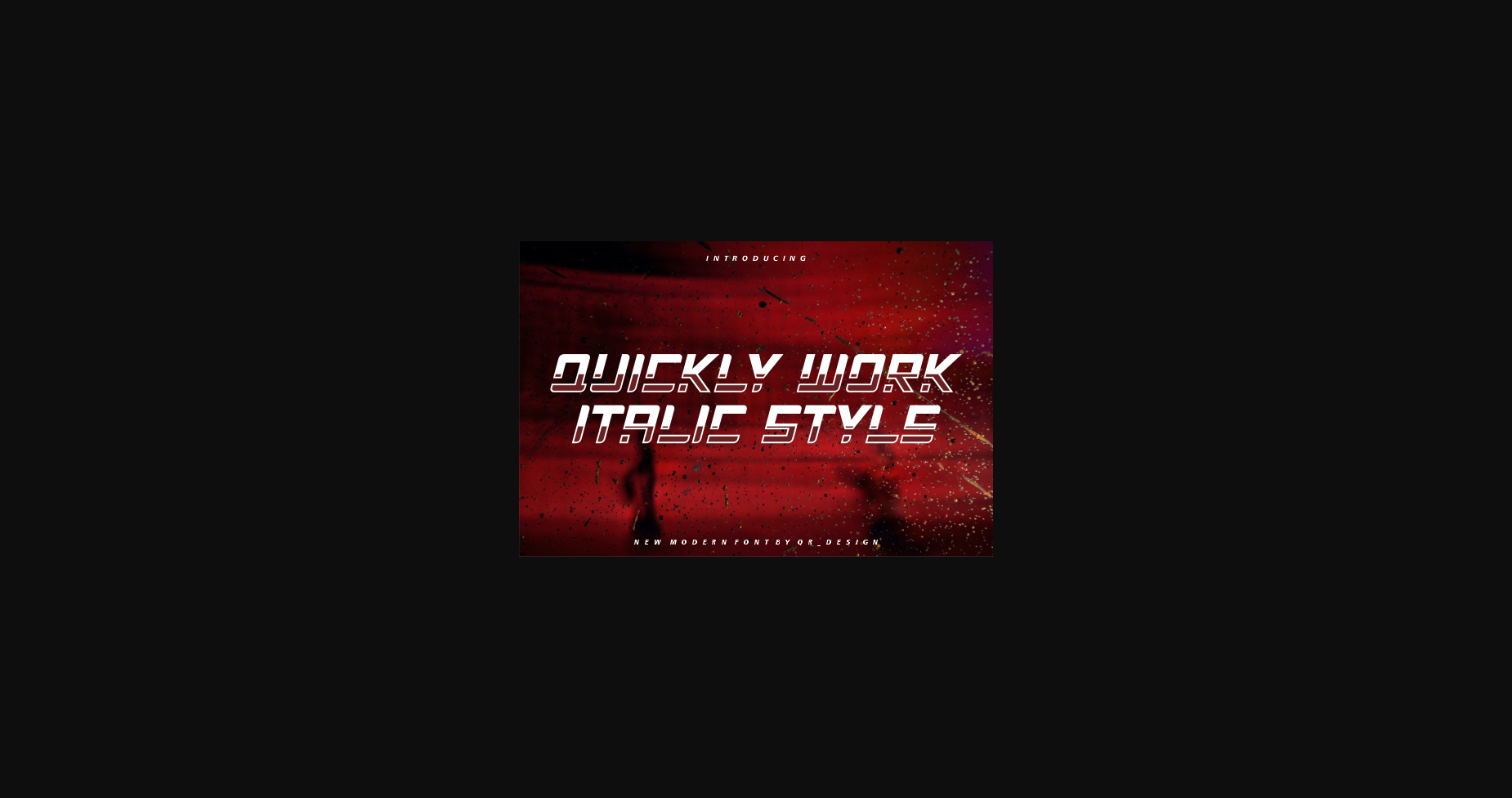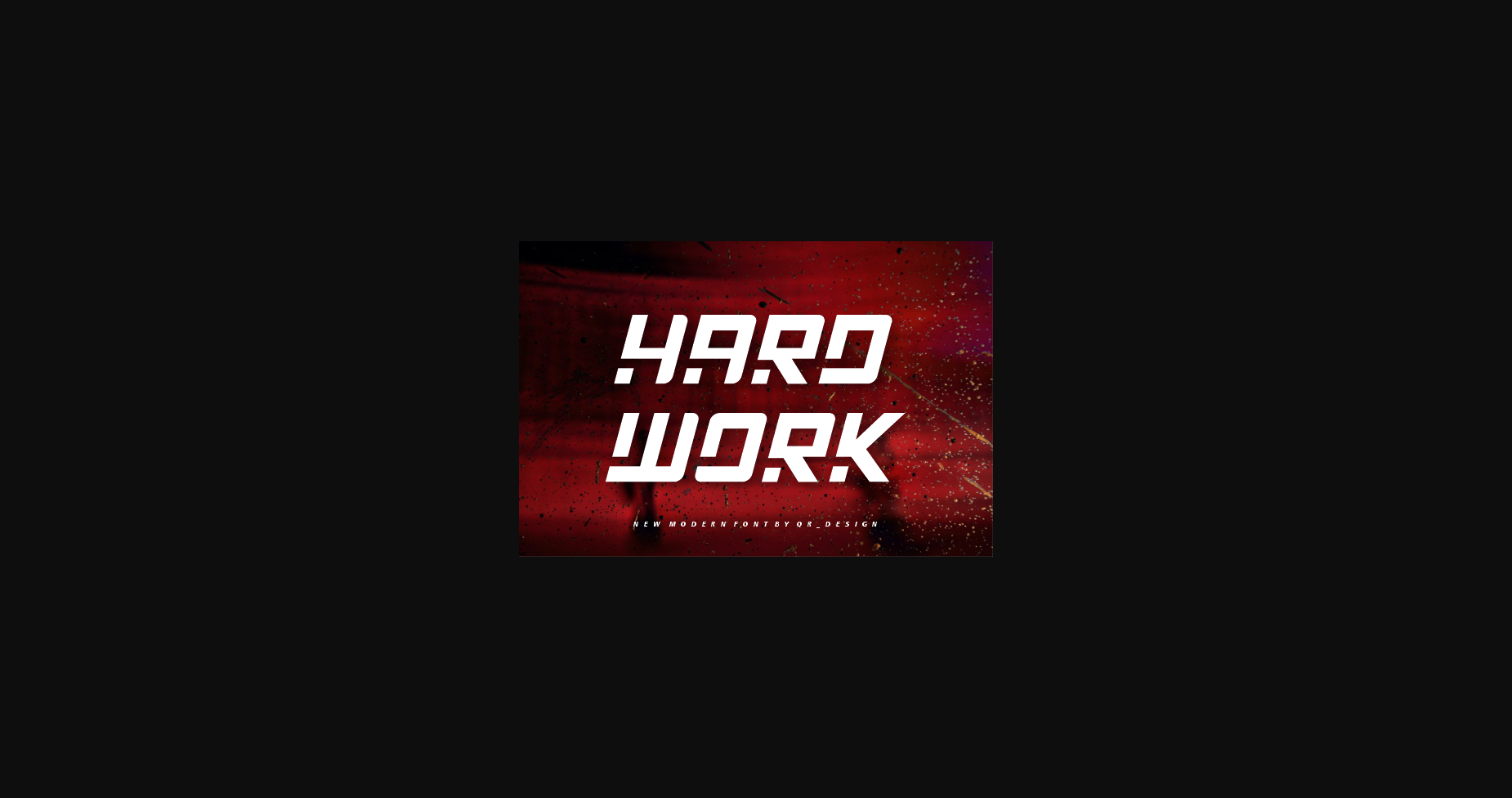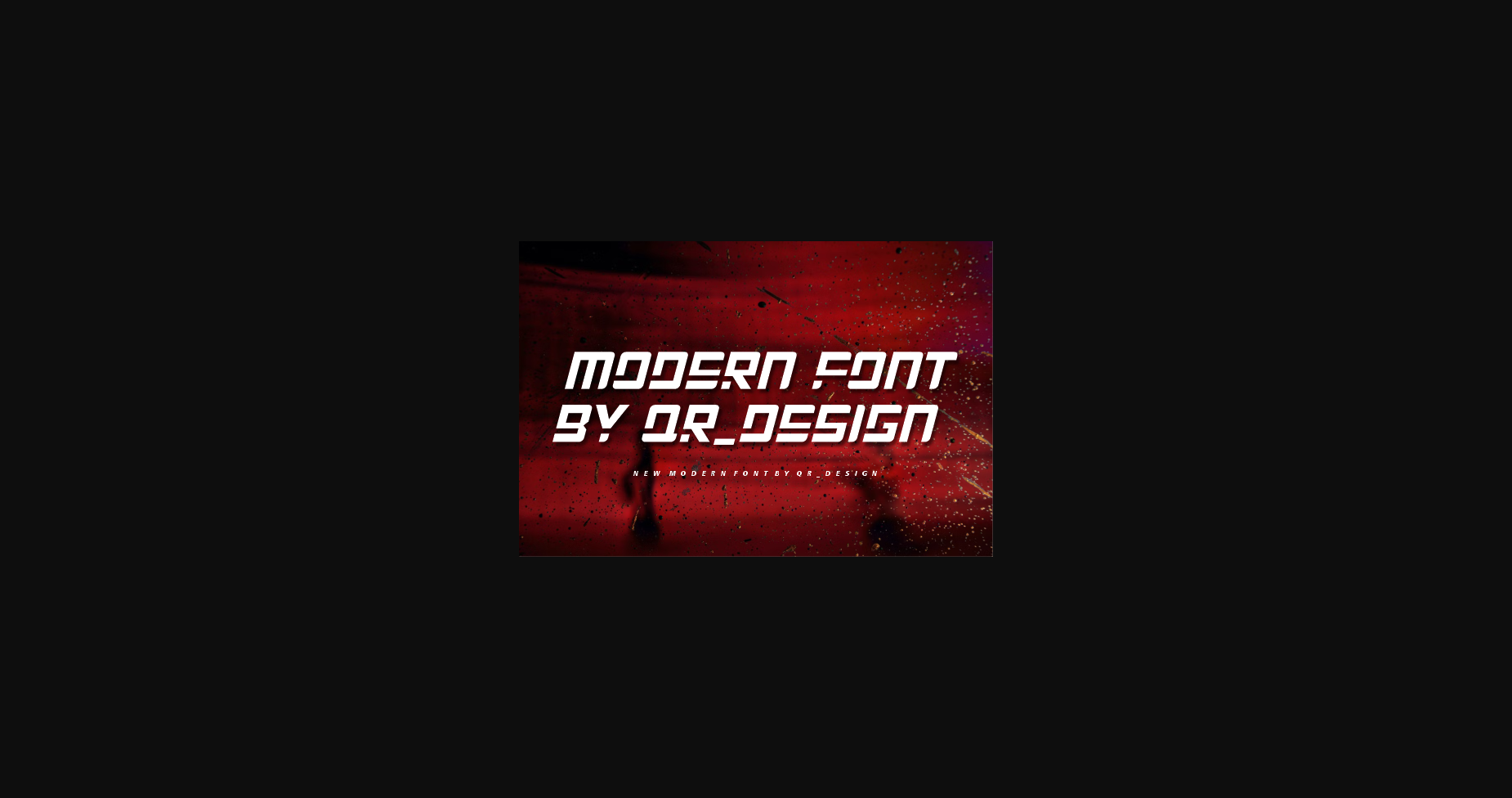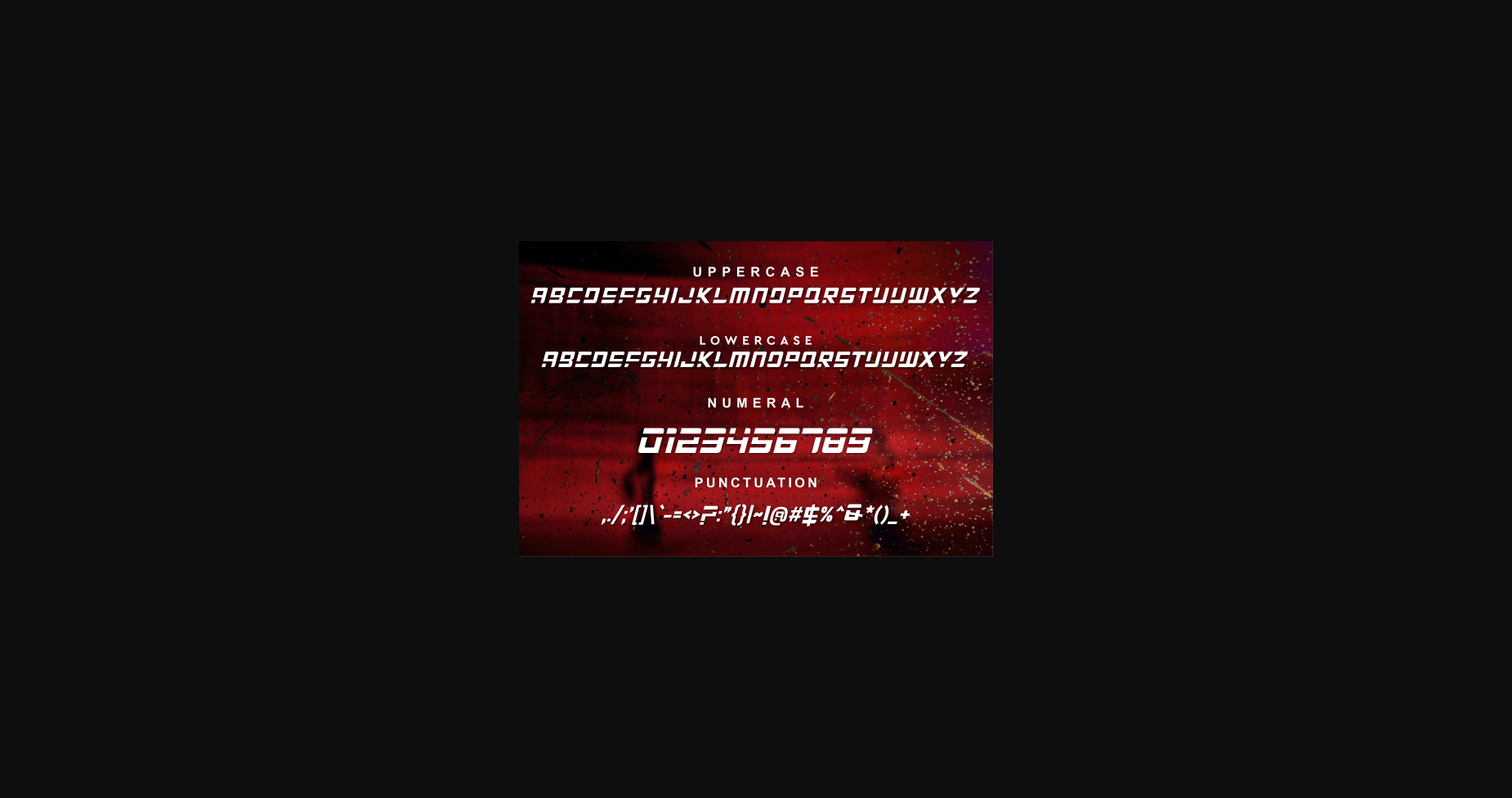
HomeSans Serif FontsQuickly Work Font Sans Serif Fonts Quickly Work Font FacebookXPinterestWhatsApp 1 of 7 ... Quickly Work Font Poster 2... Quickly Work Font Poster 3... Quickly Work Font Poster 4... Quickly Work Font Poster 5... Quickly Work Font Poster 6... Quickly Work Font Poster 7... About Quickly Work Font Quickly Work Italic Style- Modern Font is a bold and authentic display font. The font is suitable for any branding project like logo, t-shirt printing, Game, sport, and many more. outstanding in a wide range of contexts. DOWNLOAD NOW People also explored Bell Font Wildflowers Font Halymon Font Reindeer Monogram Font Besteec Font Enagol Math Rounded -4 fonts- Font Flamingo Font Christmas Snowflake Font Raymore Font 301 0 TagsQuickly Work Font Previous articleMisegar FontNext articleStrategy Game Line Font LEAVE A REPLY Cancel reply Comment: Please enter your comment! Name:* Please enter your name here Email:* You have entered an incorrect email address! Please enter your email address here Website: Save my name, email, and website in this browser for the next time I comment. Personal Use Free BD Medled Personal Use Free Read more about this font Equalizer Script Personal Use Free Read more about this font Winner Personal Use Free Read more about this font Starter Personal Use Free Read more about this font BLOG How to Install and Use Fonts on Windows, macOS, and Web Projects How to Install and Use Fonts on Windows, macOS, and Web Projects Fonts are a crucial part of design and branding. Whether you’re designing a... Modern Sans-Serif Fonts That Brands Love in 2025 Exploring Font Trends Fonts That Capture the Spirit of New York City